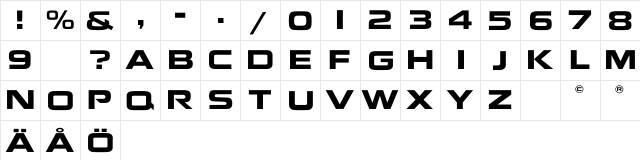
NokiaKokia Regular
Design Context for NokiaKokia Typeface
NokiaKokia takes a measured approach to typography — its balanced proportions and neutral character make it a reliable workhorse for both digital and print work.
Pro Tip: Use NokiaKokia in both headline and body roles to test its range before committing to a single application.